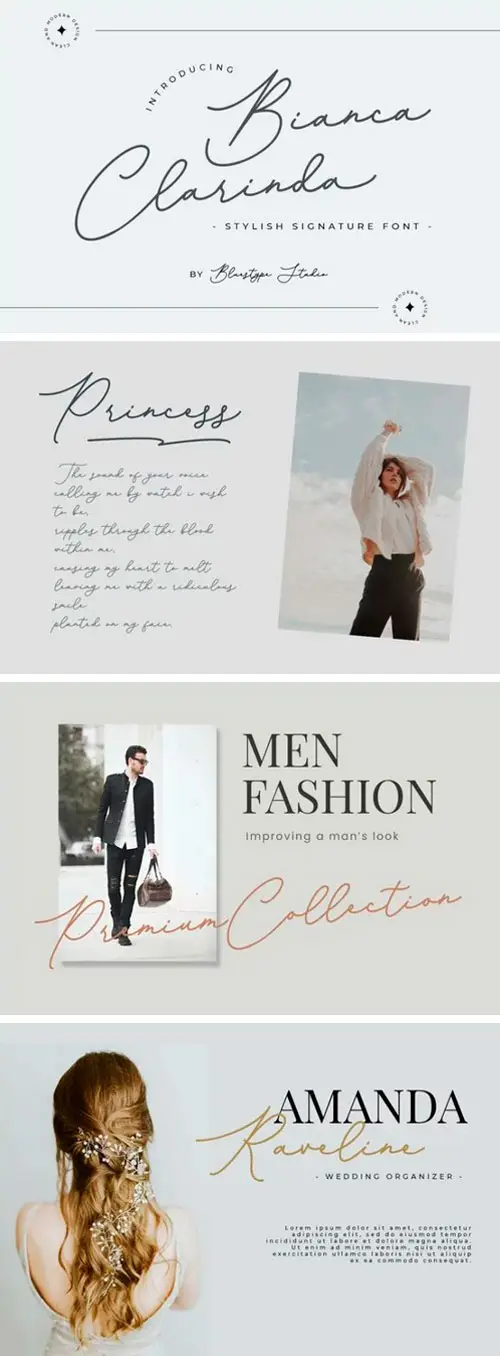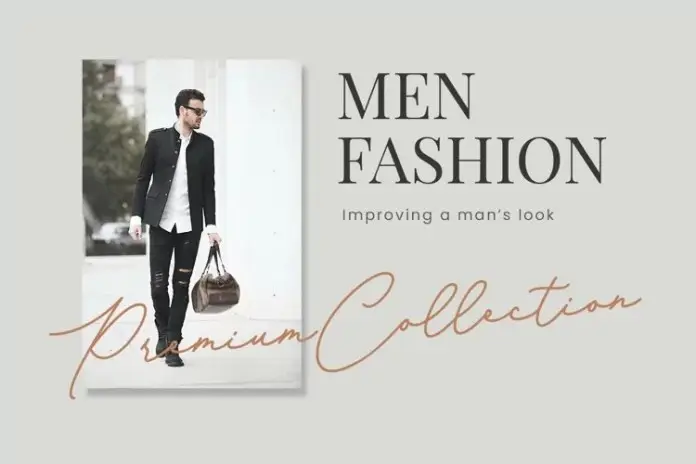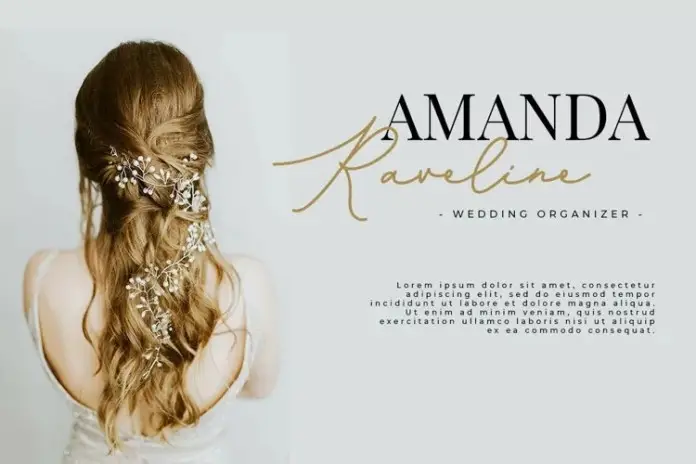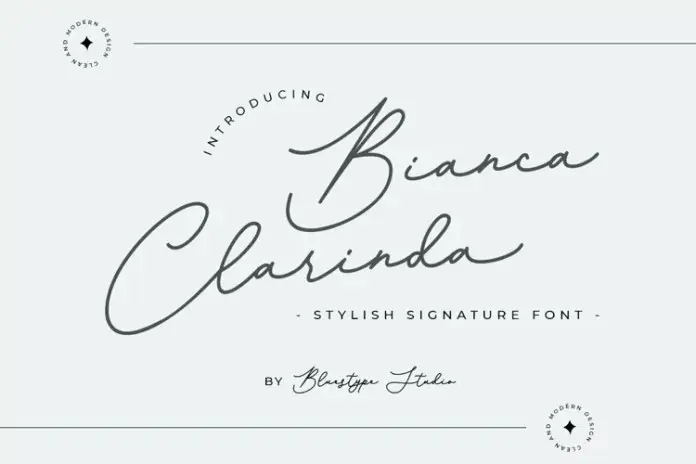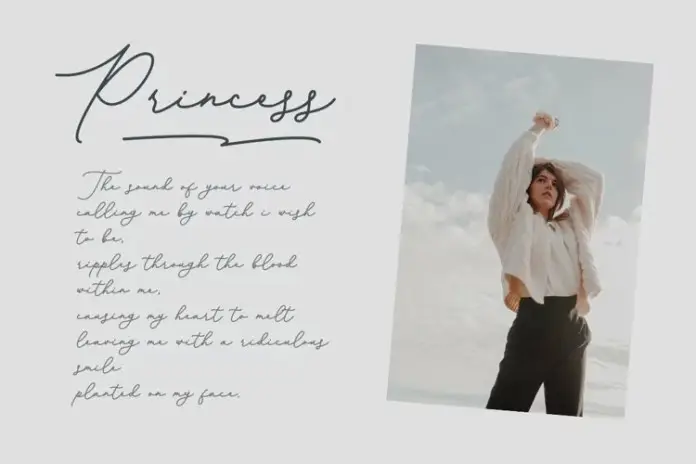
Bianca Clarinda Handwritten Font
Introducing the Bianca Clarinda Handwritten Font, a beautifully crafted typeface that brings a personal touch to your designs. This font features a unique handwritten style, perfect for adding warmth and character to your projects.
Ideal for branding, logos, invitations, and print materials, the Bianca Clarinda font is perfect for any project that requires a personal and artistic touch.